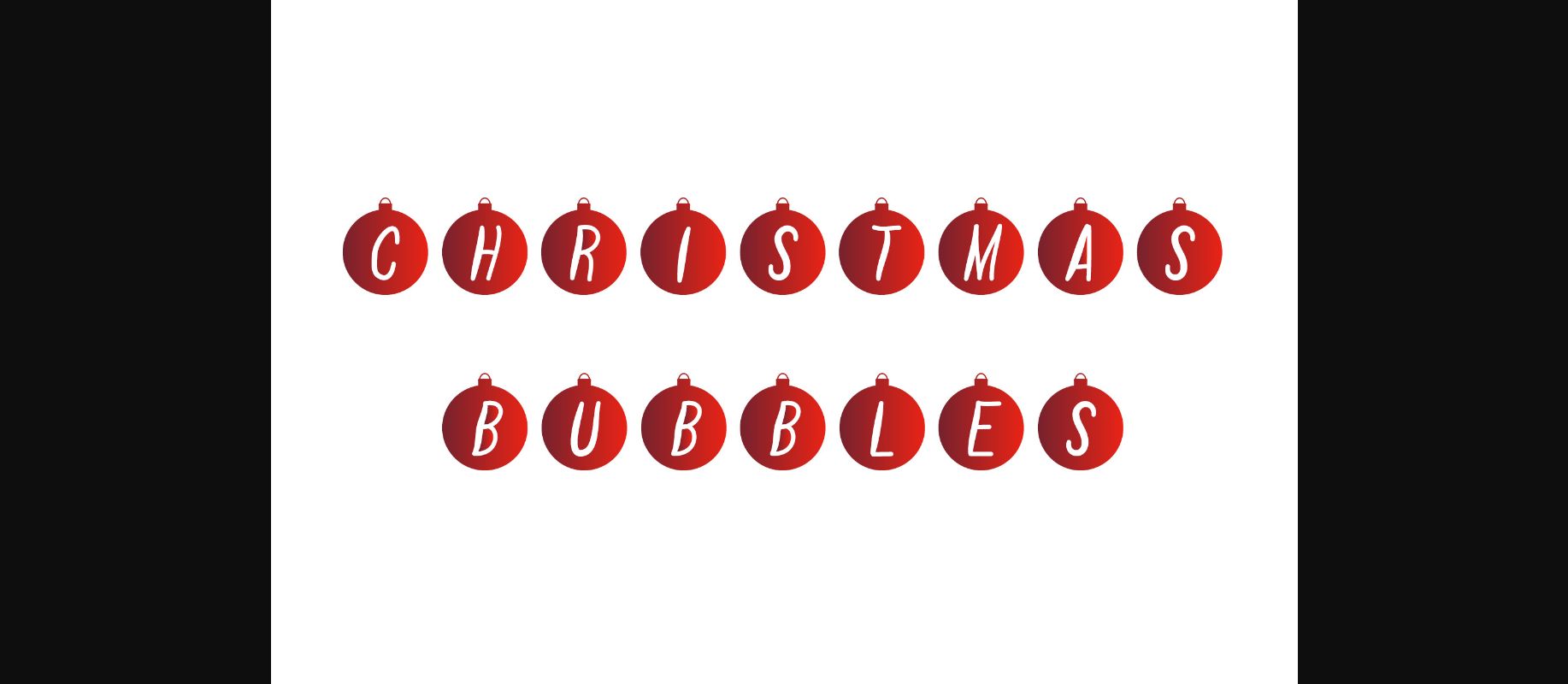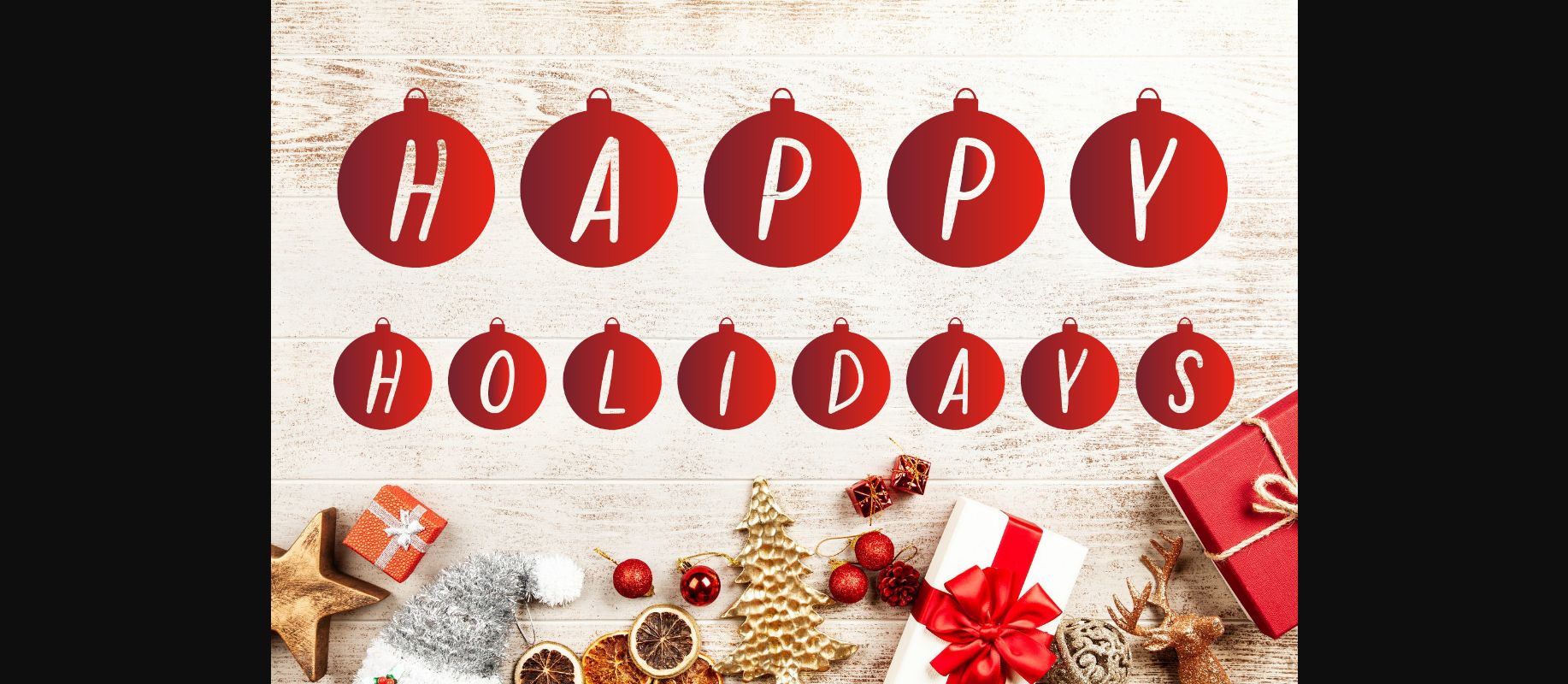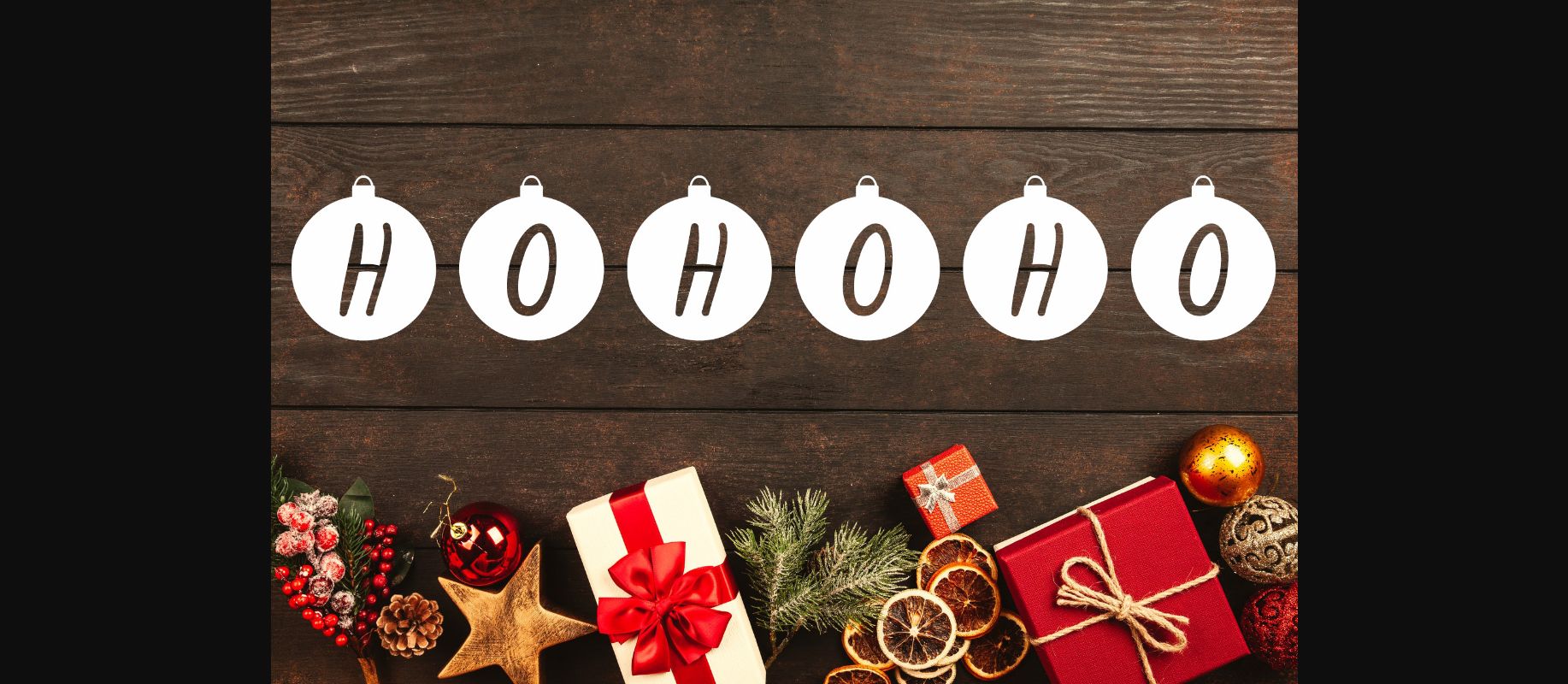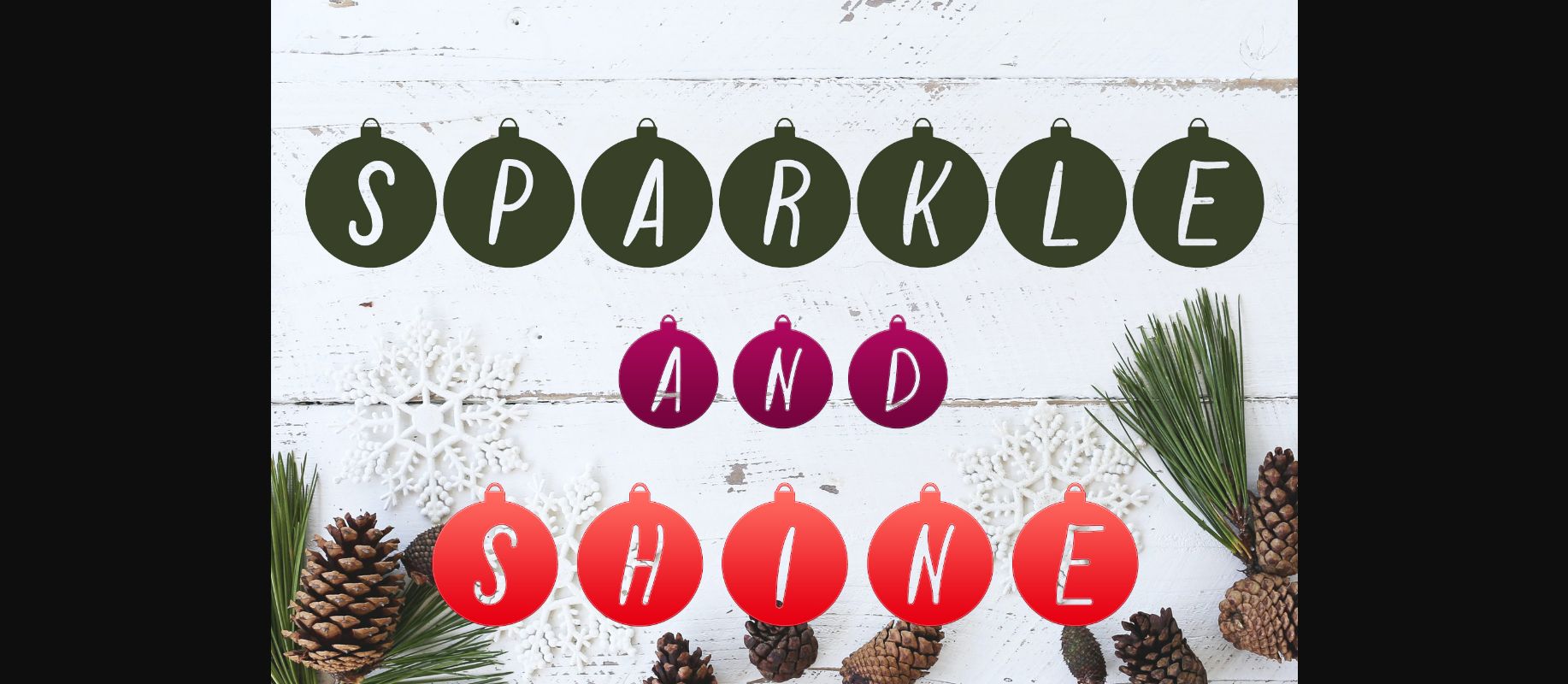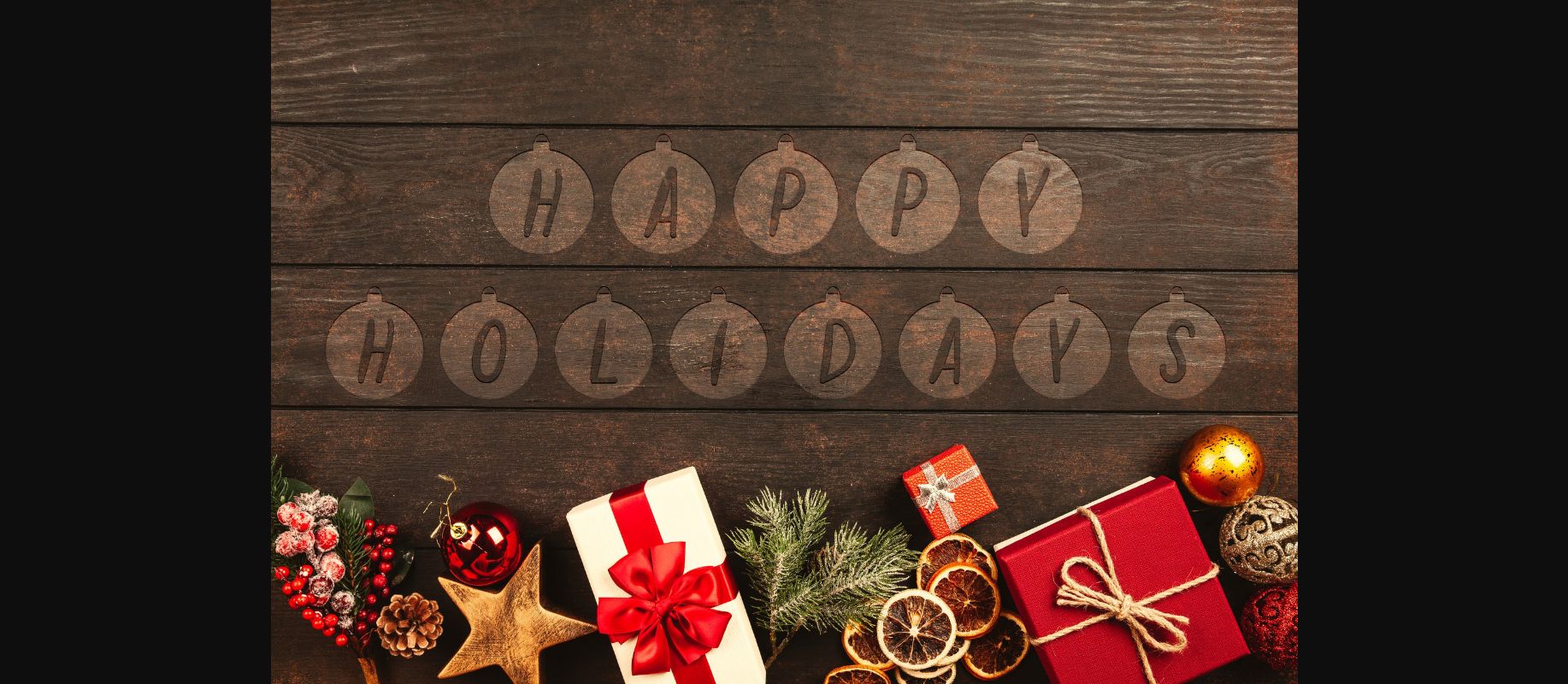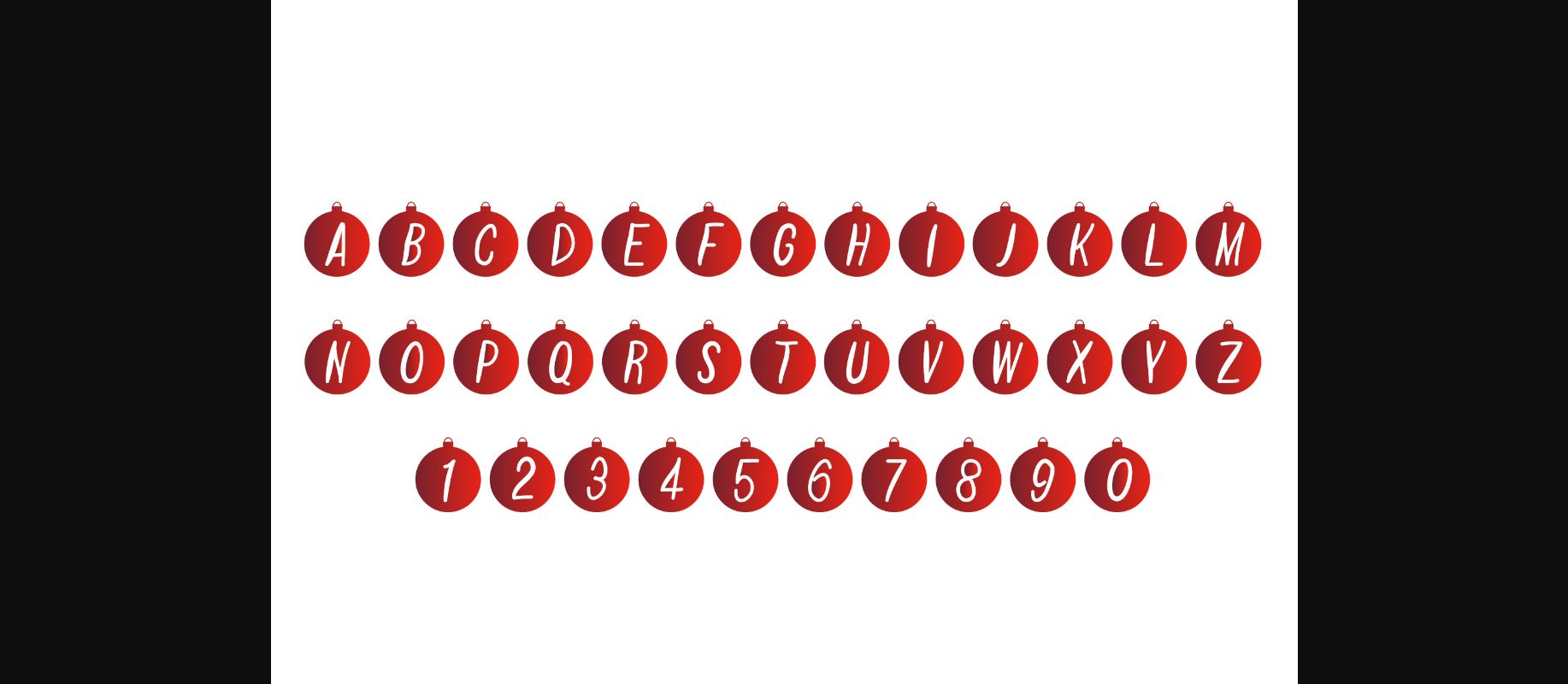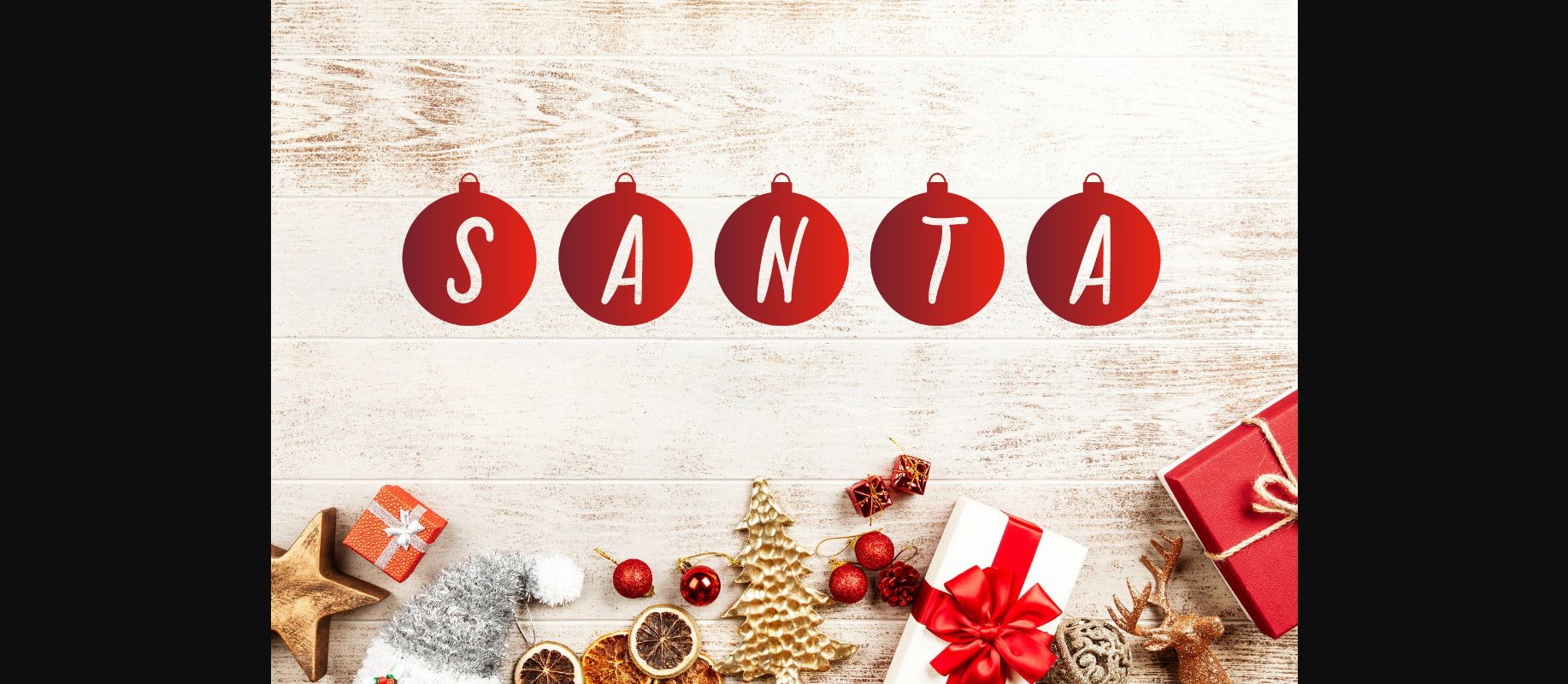
Christmas Bubbles Font
About Christmas Bubbles Font
Christmas Bubbles is a sweet, simple and fun decorative font. It is ideal for each of your Christmas cards or designs. Let your imagination run free!